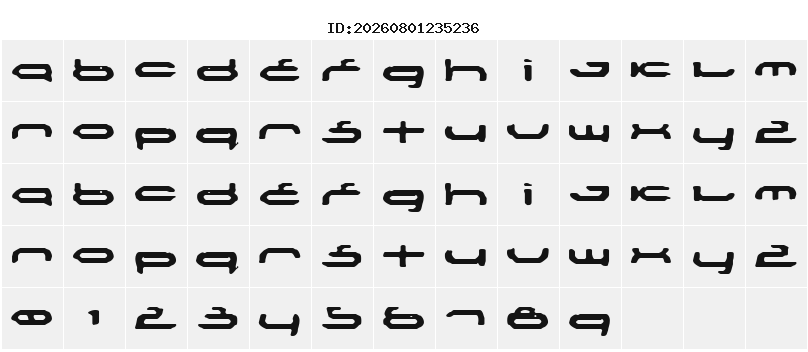
Mechoba Preview
• Font Name: Mechoba
• Full Font Name: Mechoba
About Mechoba.ttf
Mechoba.ttf is a modern, elegant sans-serif font designed for ultimate readability and visual harmony. Perfect for branding, headlines, web design, and print materials.